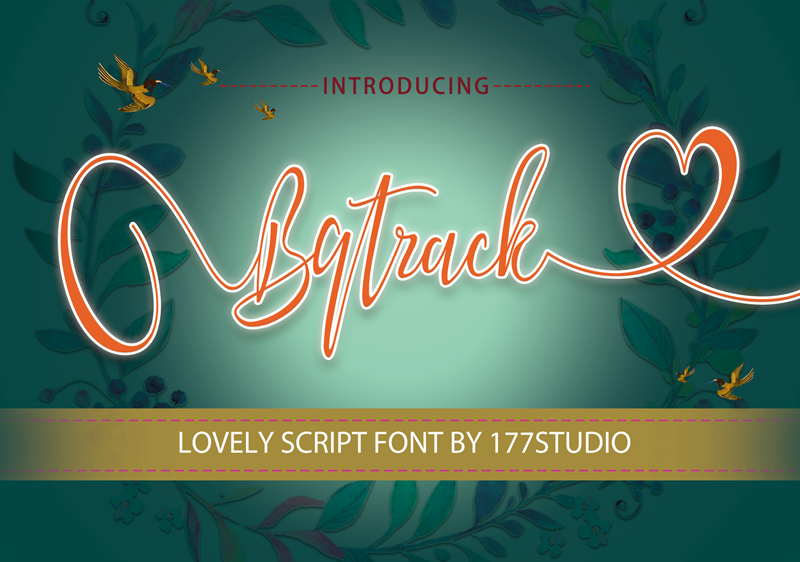
Bqtrack Font is calligraphy script font with hand lettering style. This font looks cool in any design and very recommended for logo, poster, branding, quote, or anything else that needs a touch of elegance. You can buy full license from our store for more our fonts: https://177studio.com/product/bqtrack-calligraphy-script-font/ if you have any problem, let we know by email: admin@177studio.com |